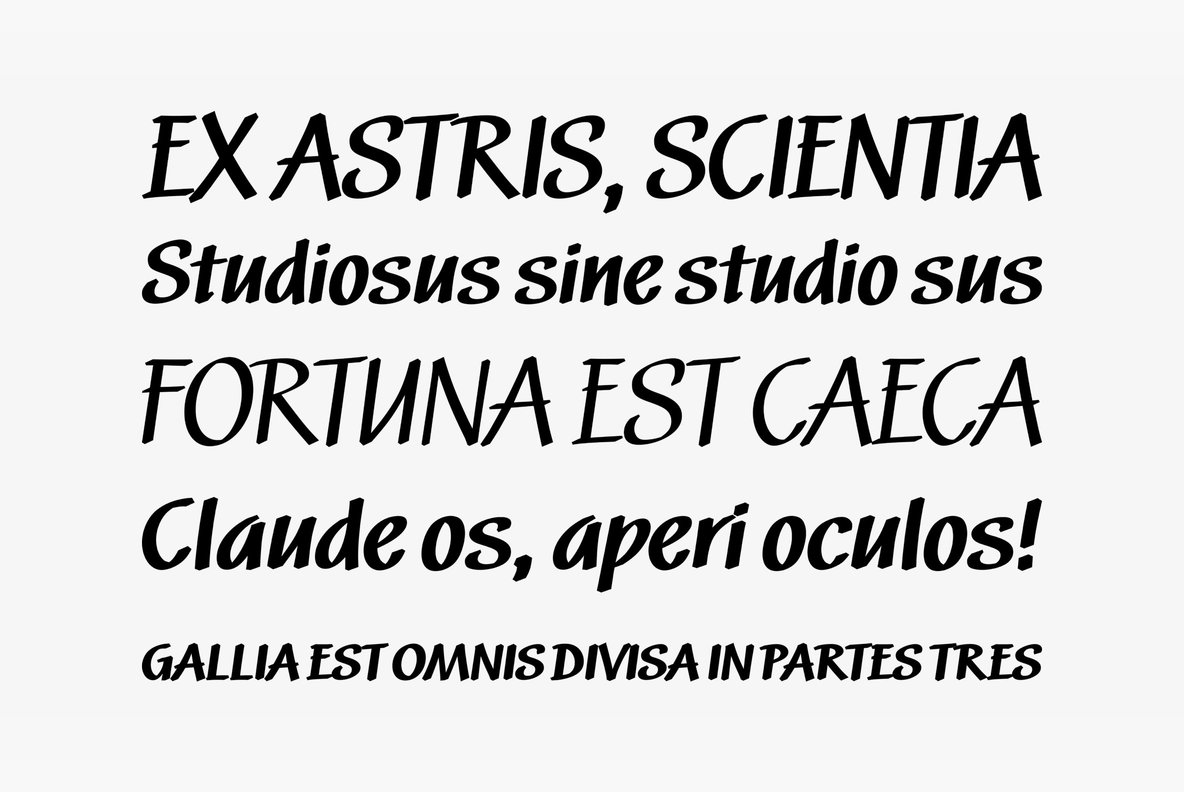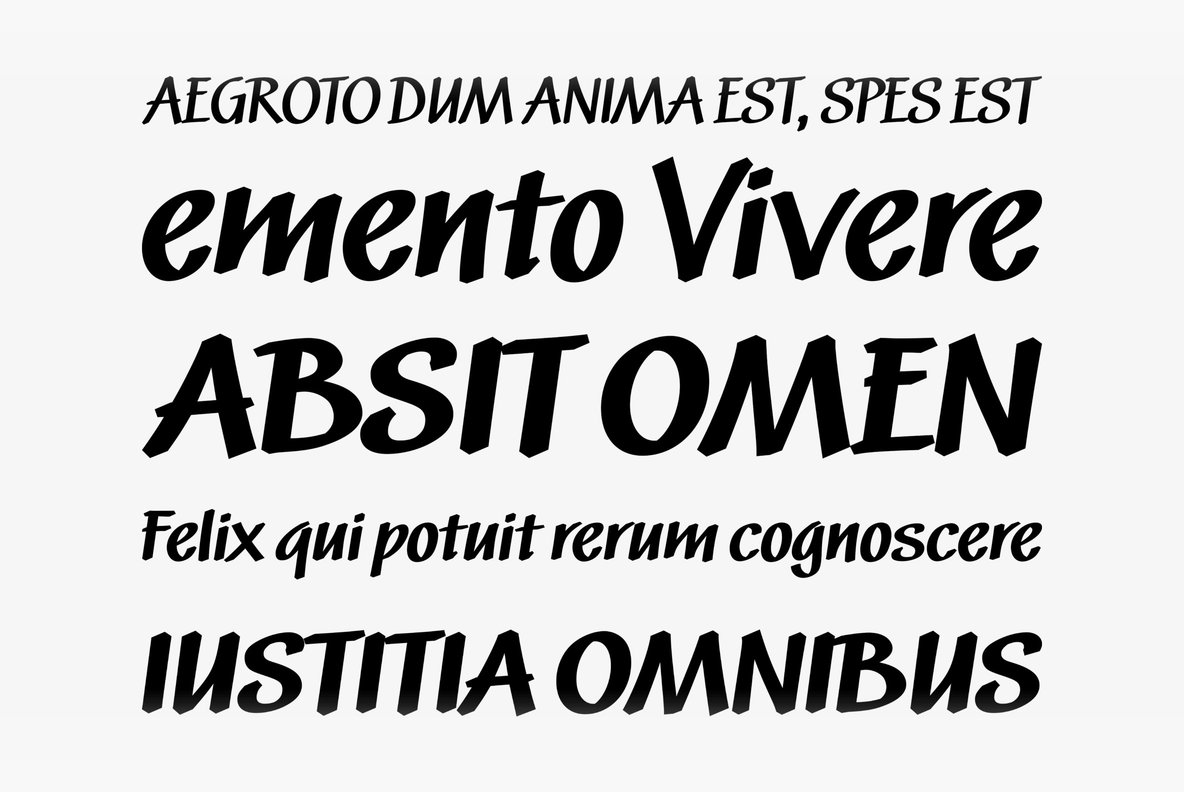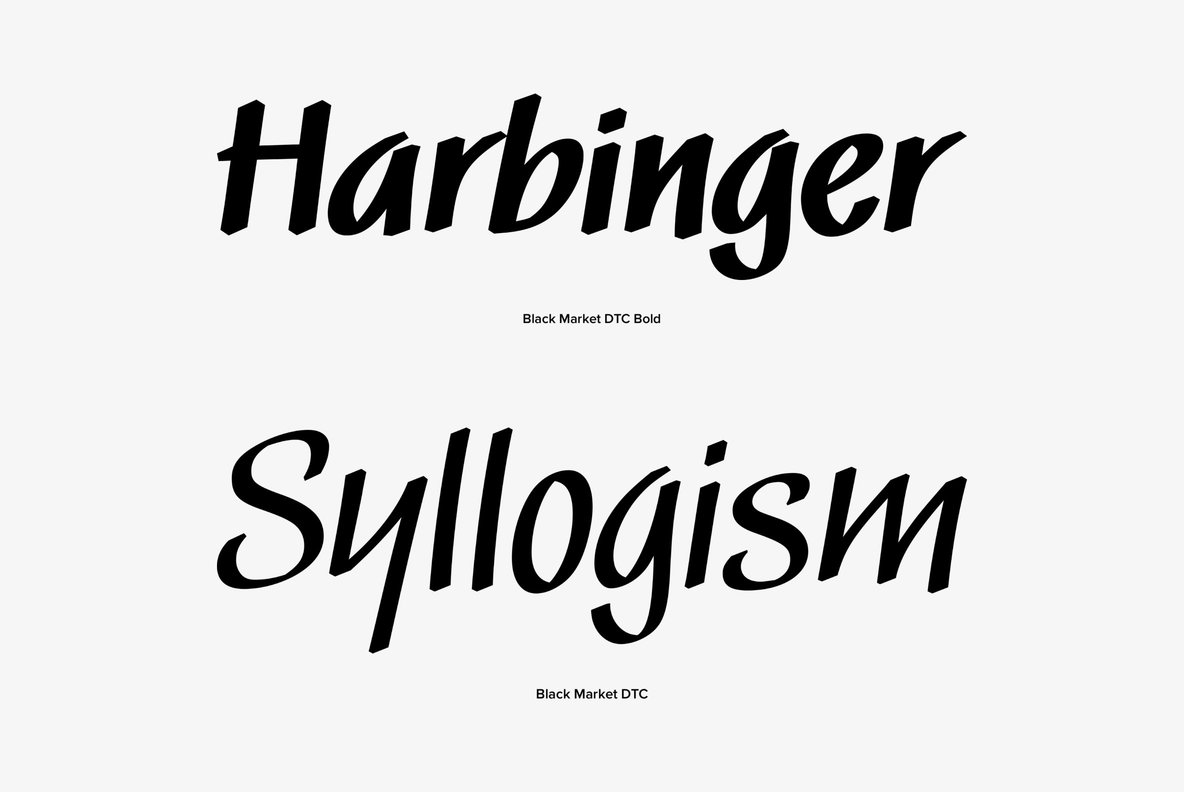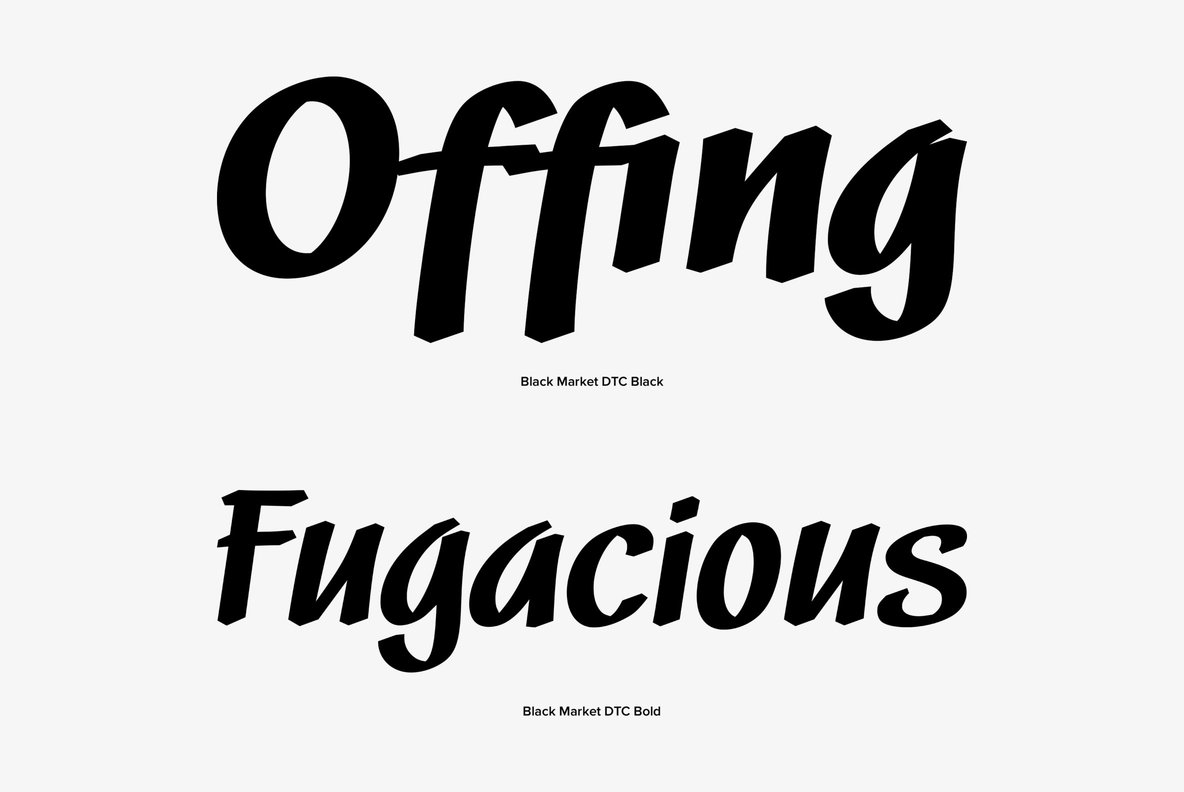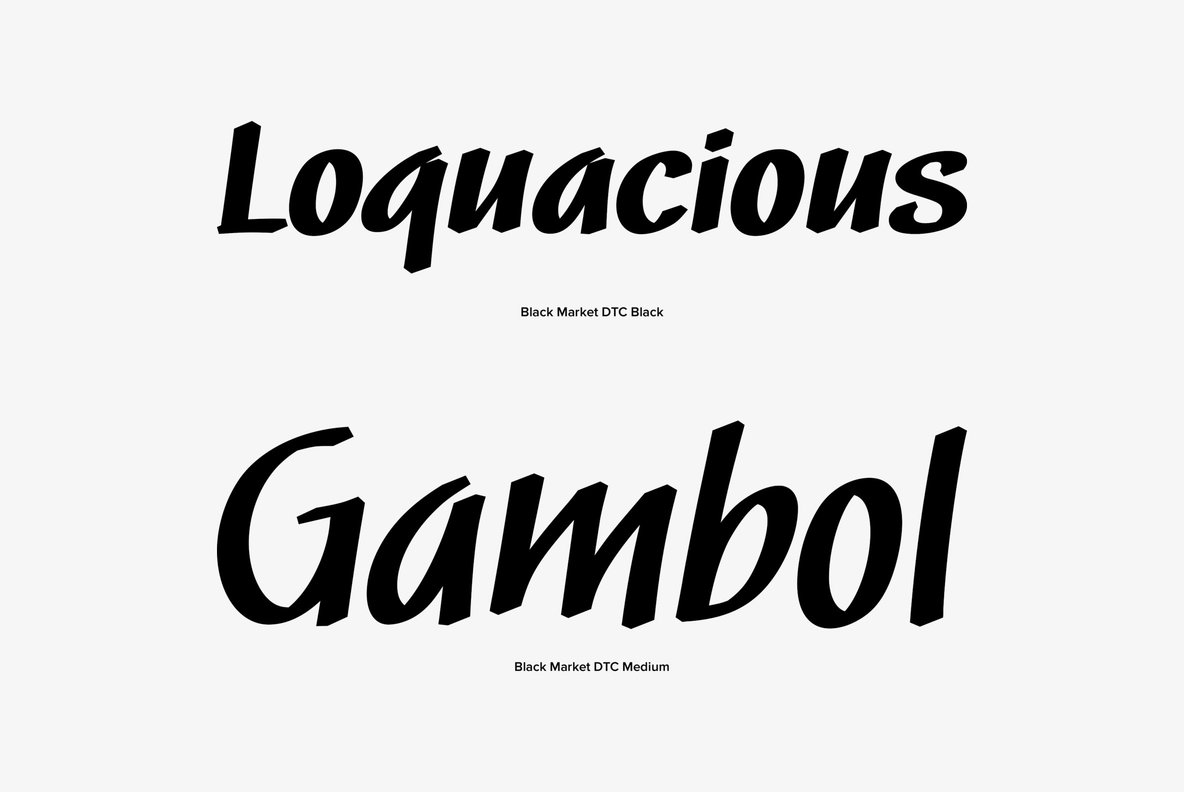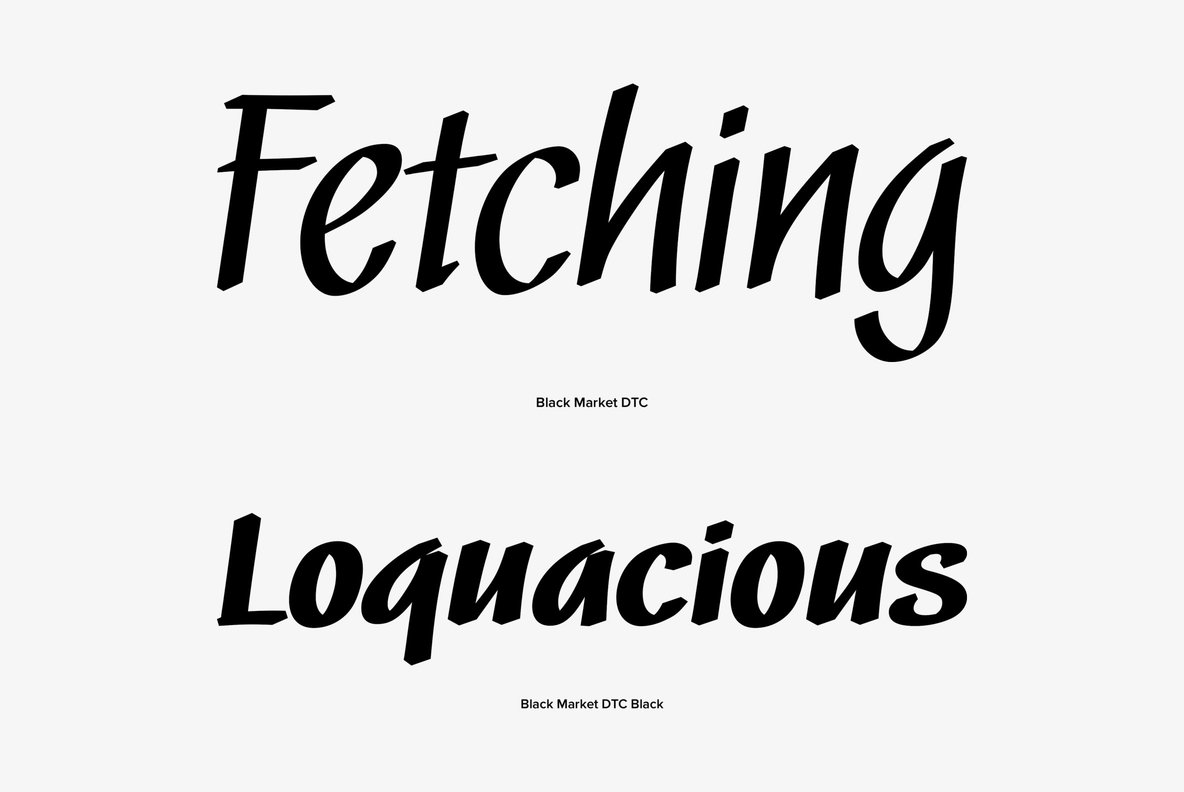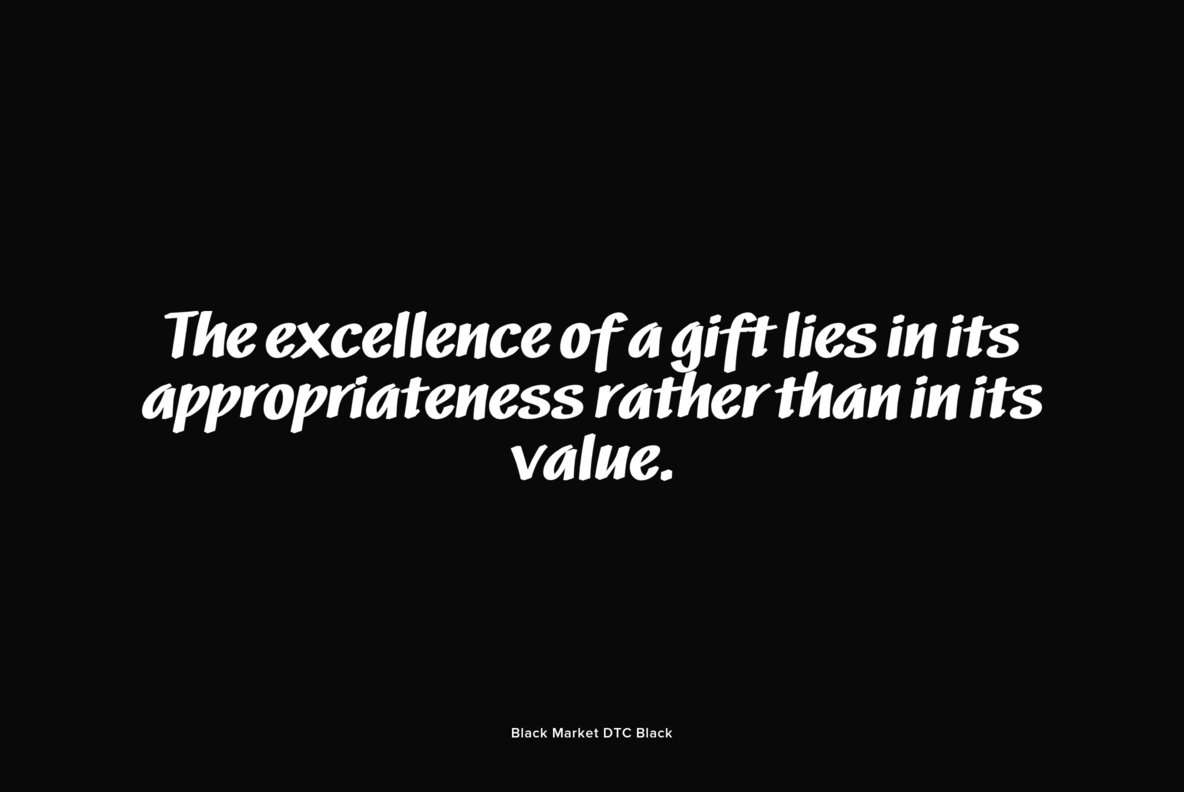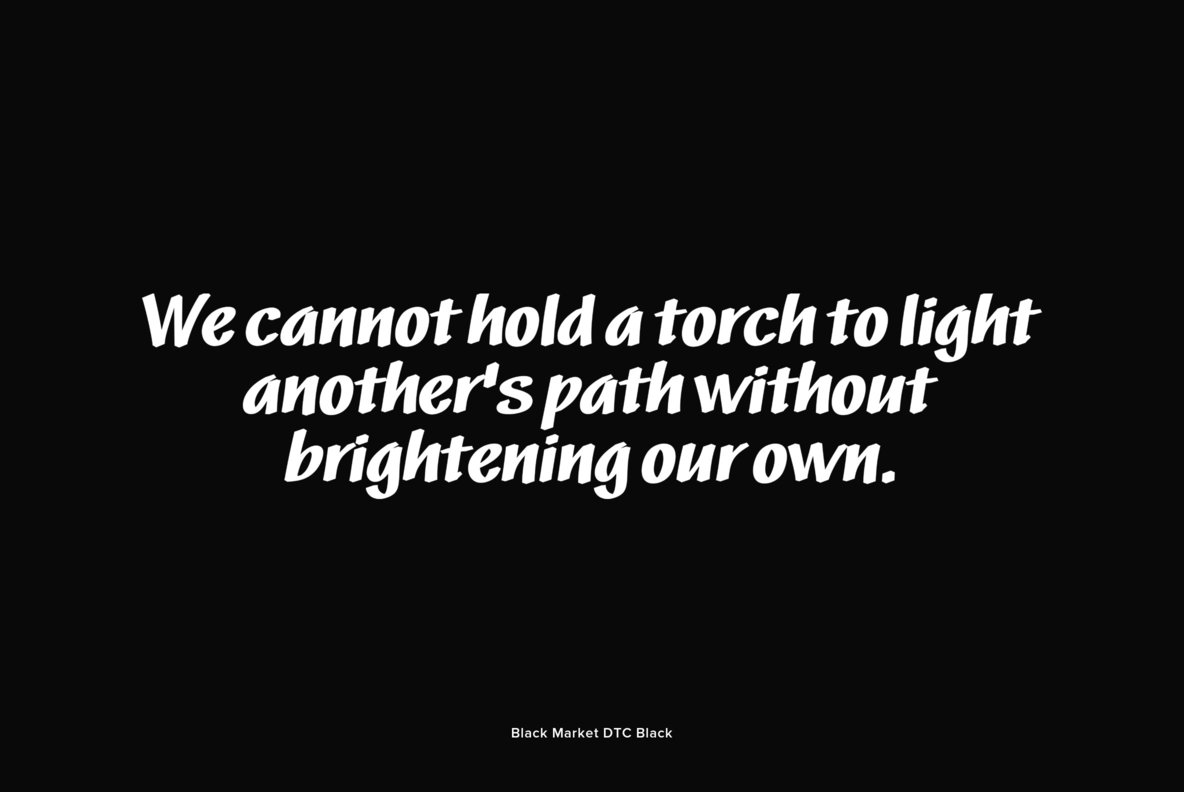
Black Market
DTC Black Market is best used for price tags and signs in shops, especially in stores and markets. Designed by Volker Schnebel and Fritz Renzo Heinzem published by URW.